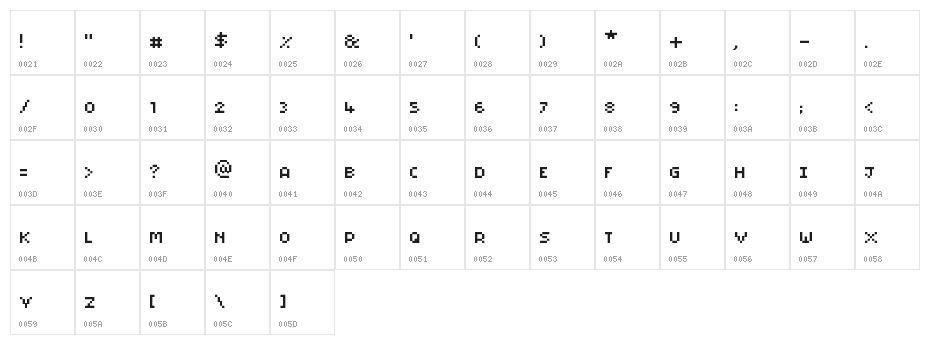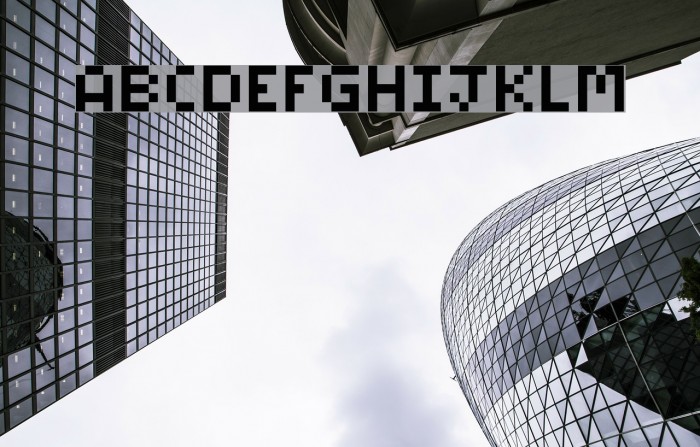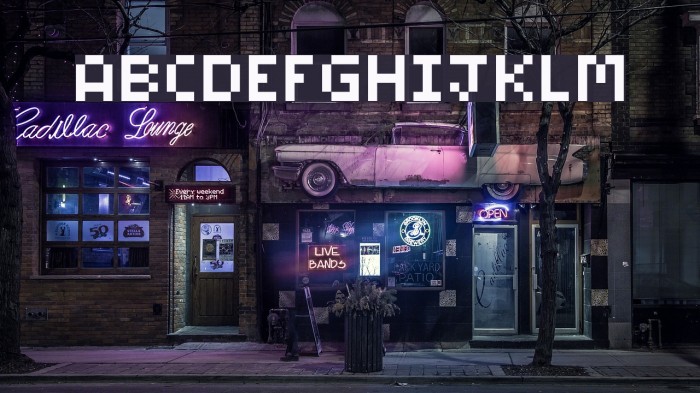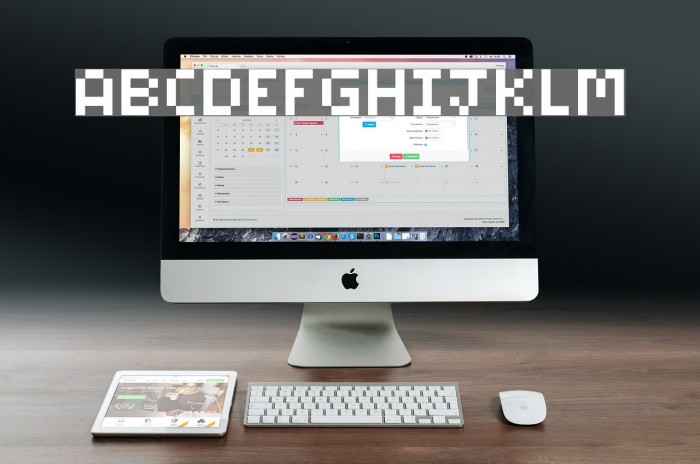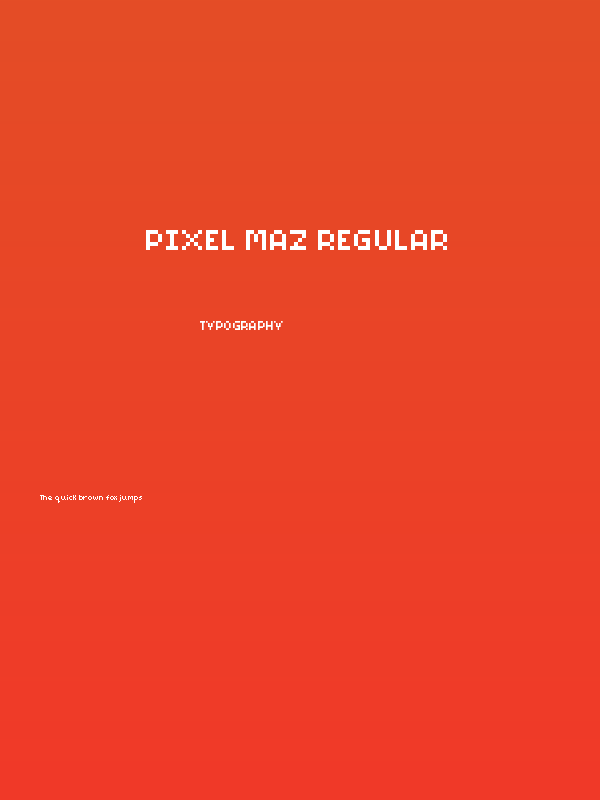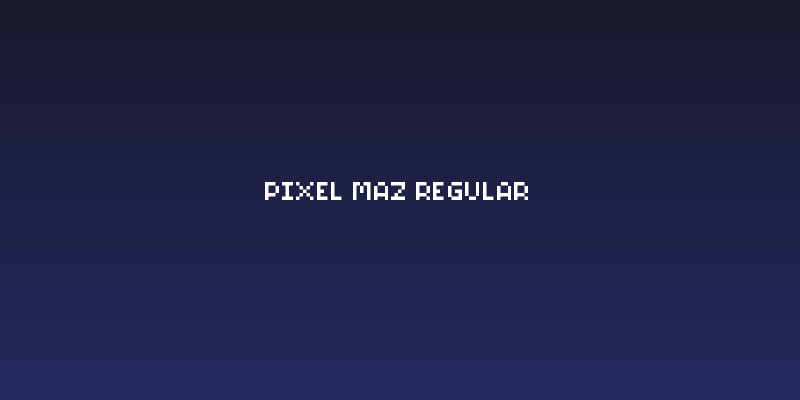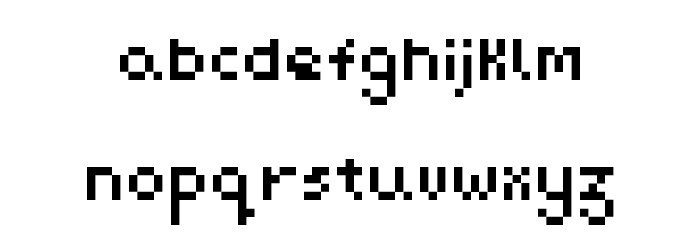
Pixel Maz Regular Font
Pixel Maz Regular Description
This font features a pixelated, blocky design reminiscent of early digital displays and video games. Each character is constructed with a grid-like precision, giving it a retro, nostalgic feel. The uppercase and lowercase letters maintain a consistent height, enhancing readability while preserving the pixel art aesthetic. Numbers and special characters follow the same design principles, ensuring uniformity across all glyphs. The font's simplicity and clarity make it ideal for projects that aim to evoke a sense of digital nostalgia or retro gaming culture.
| Overall Style | Retro |
| Use Case | Logos, Headlines, Digital Art |
| Proposed Projects | Perfect for retro video games, digital art projects, and nostalgic branding. |